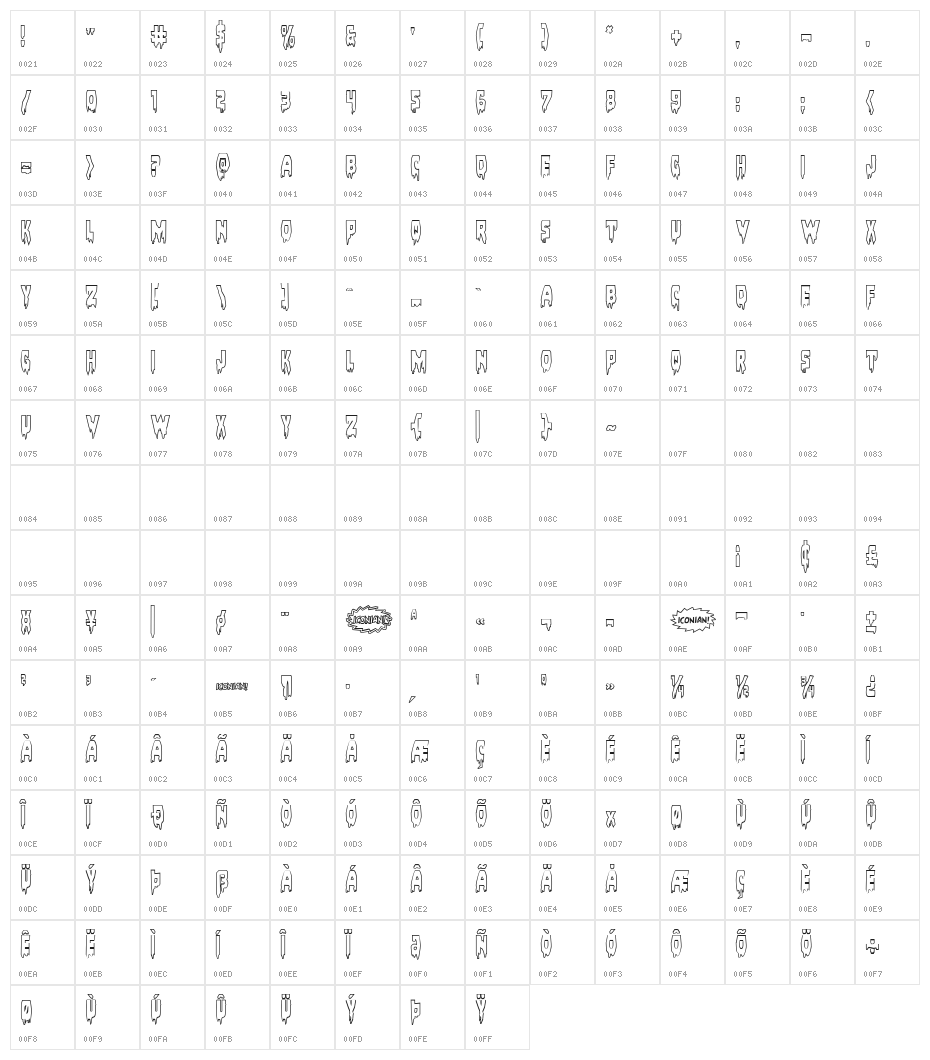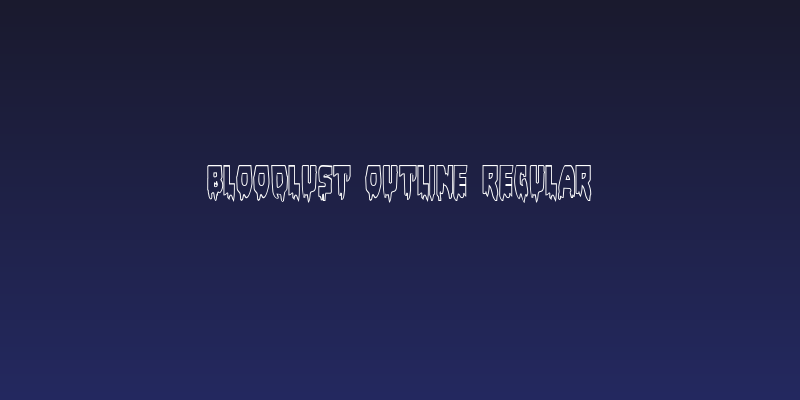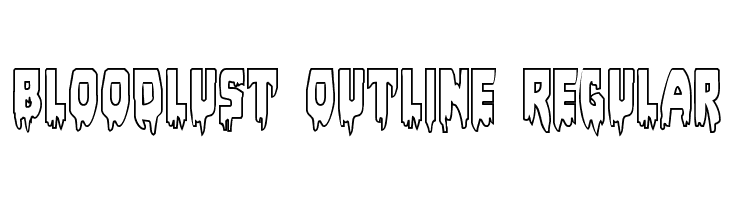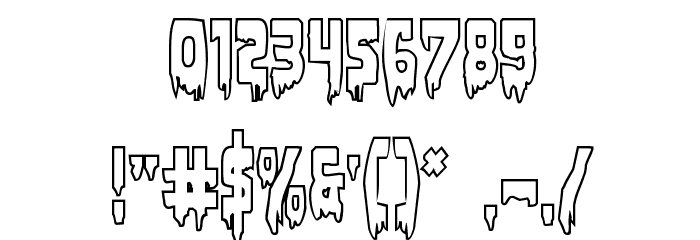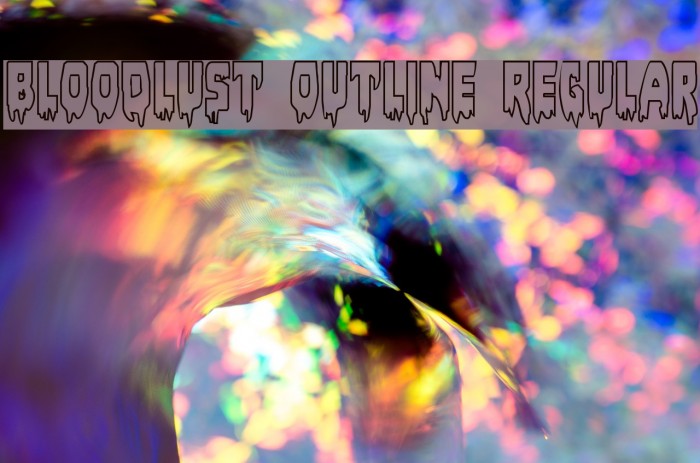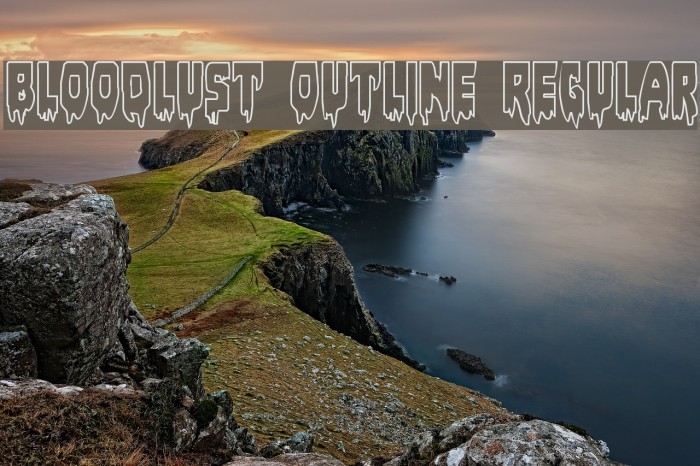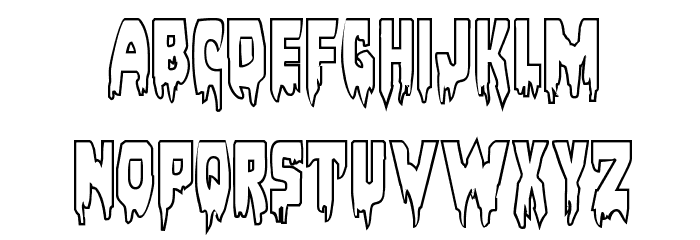
Bloodlust Outline Regular Font
Bloodlust Outline Regular Description
This font features a unique and striking design with an outline style that gives each character a dripping, eerie appearance. The uppercase and lowercase letters maintain a consistent theme, with jagged edges and a bold presence that evokes a sense of horror or mystery. The numbers and special characters are equally stylized, making them perfect for thematic designs. The overall look is reminiscent of classic horror movie titles, making it ideal for projects that require a spooky or dramatic flair.